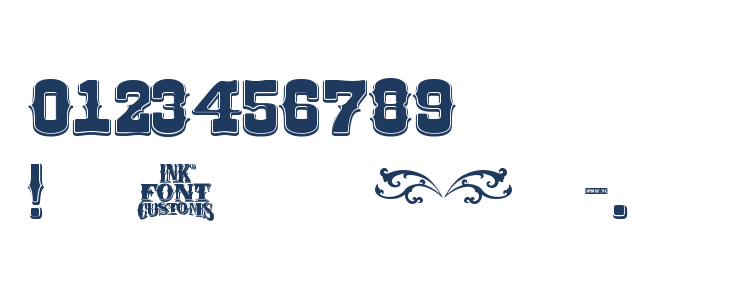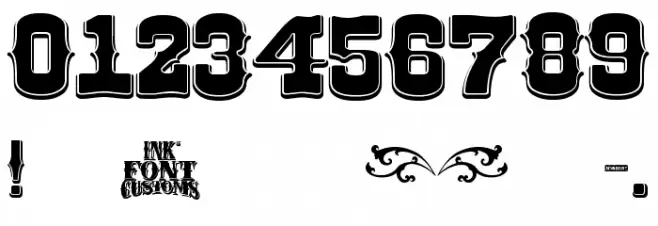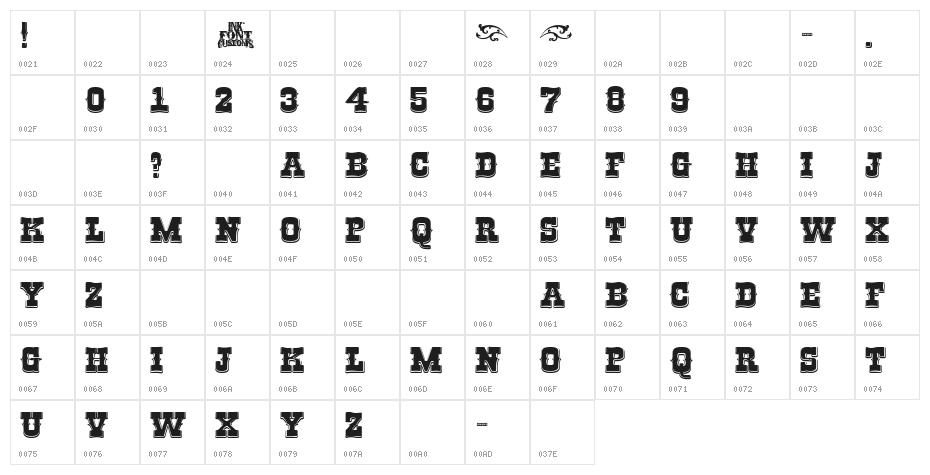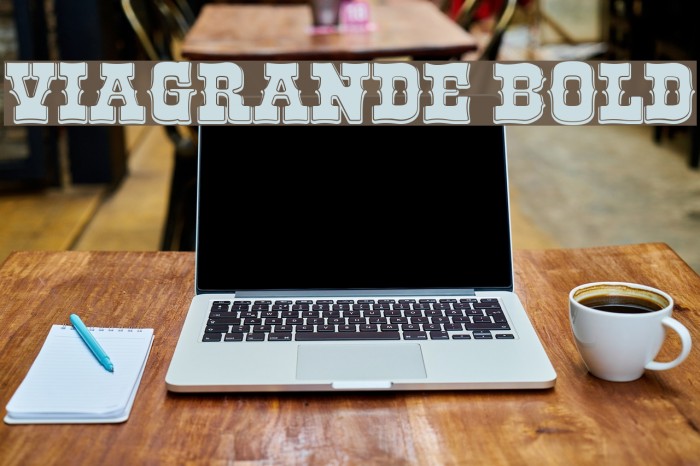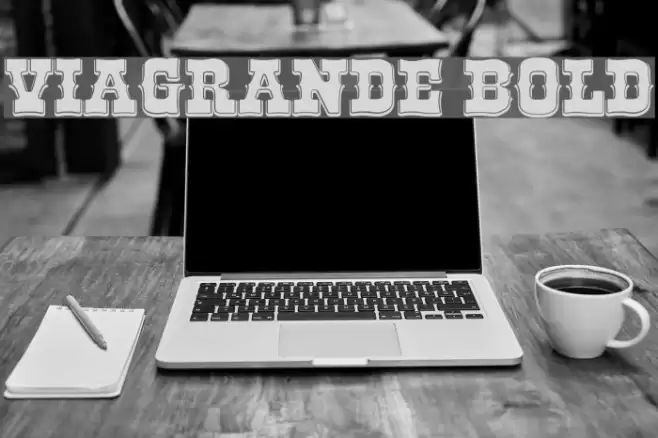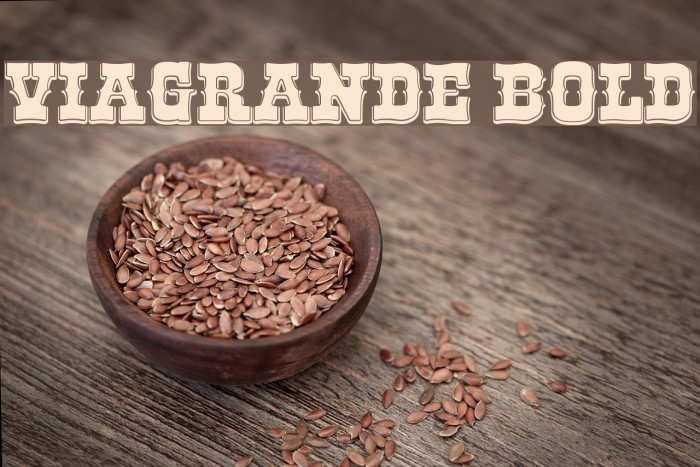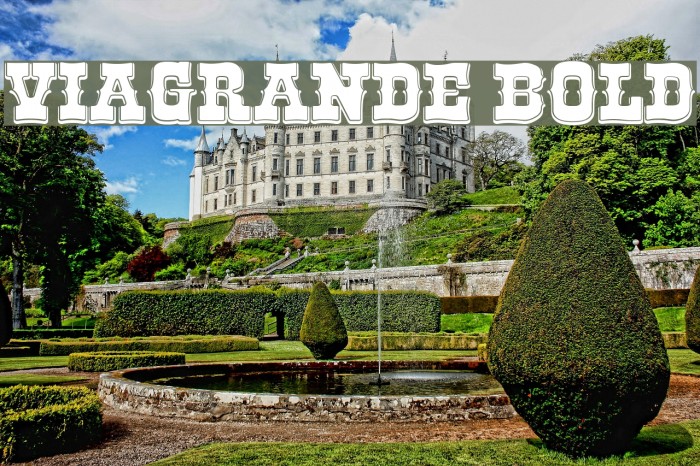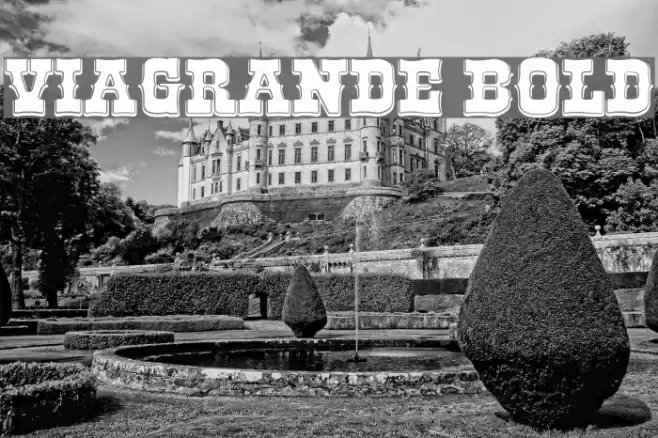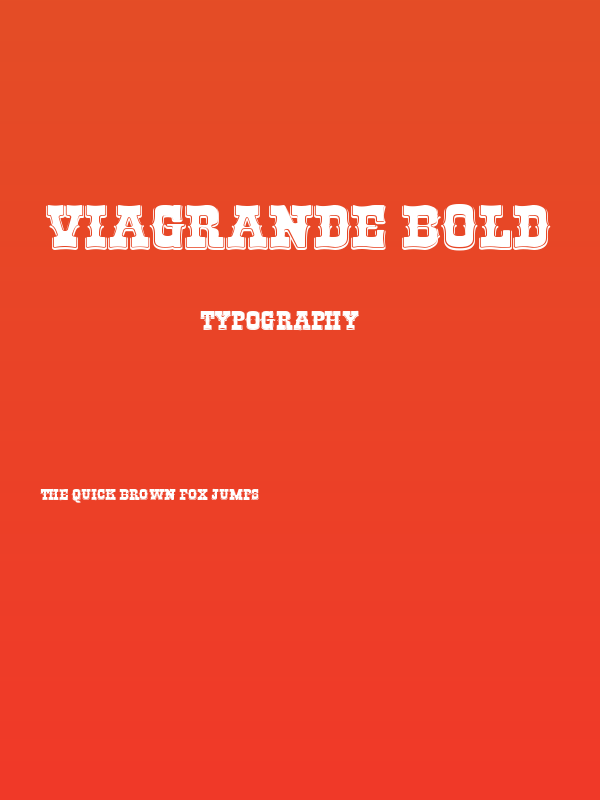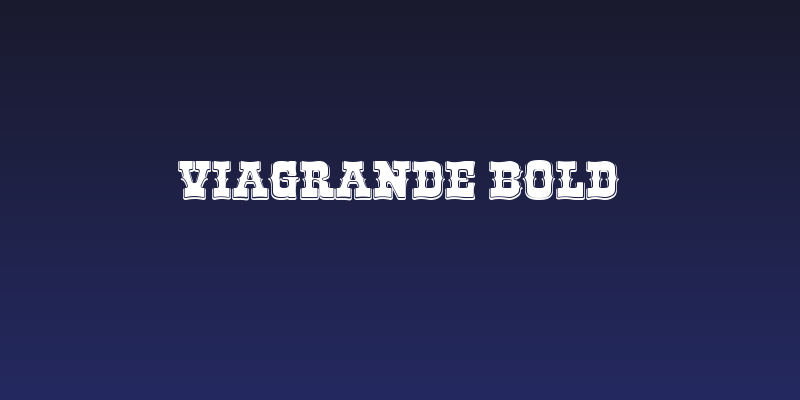
ViaGrande Bold Font
ViaGrande Bold Description
This bold and striking font features a decorative style with thick, block-like characters that have a strong presence. The letters are embellished with intricate details and a shadow effect that adds depth and dimension. The uppercase and lowercase letters maintain a consistent design, while the numbers and special characters complement the overall aesthetic. This font's boldness and unique style make it ideal for attention-grabbing designs.
| Proposed Projects | Ideal for posters, logos, branding, and any project requiring a bold, eye-catching typeface. |